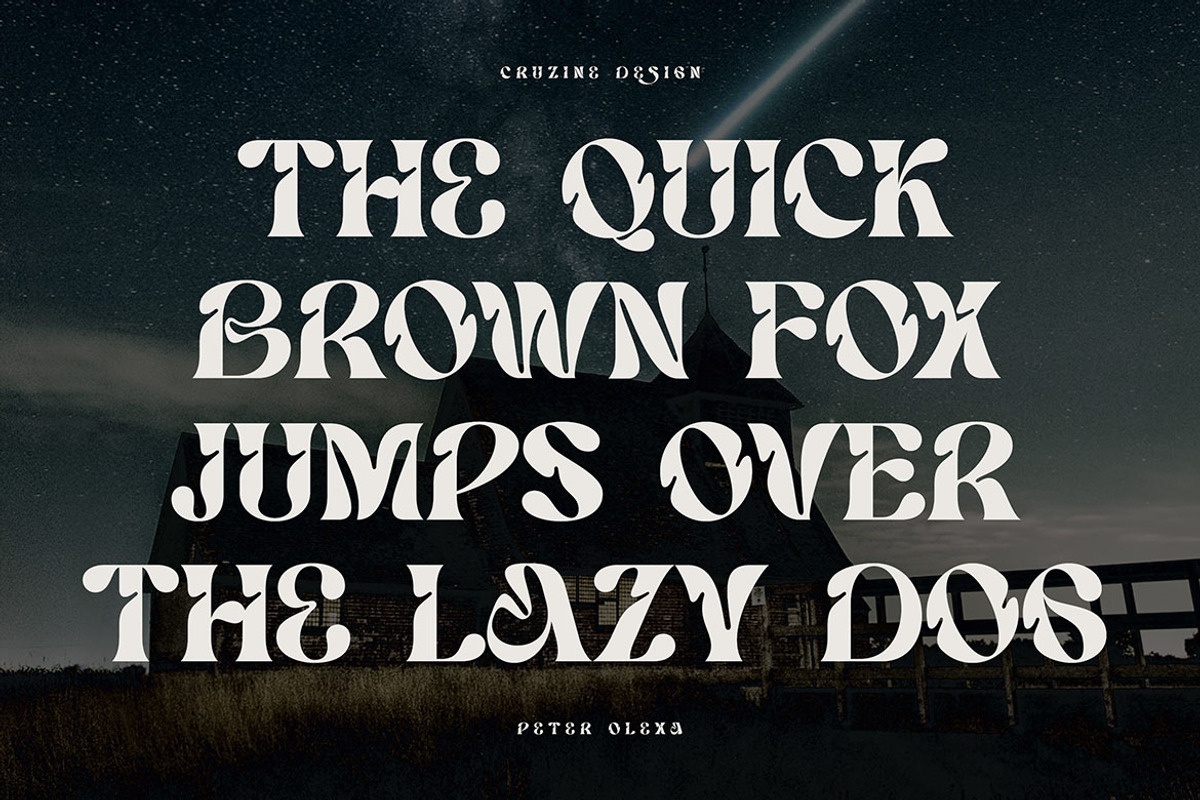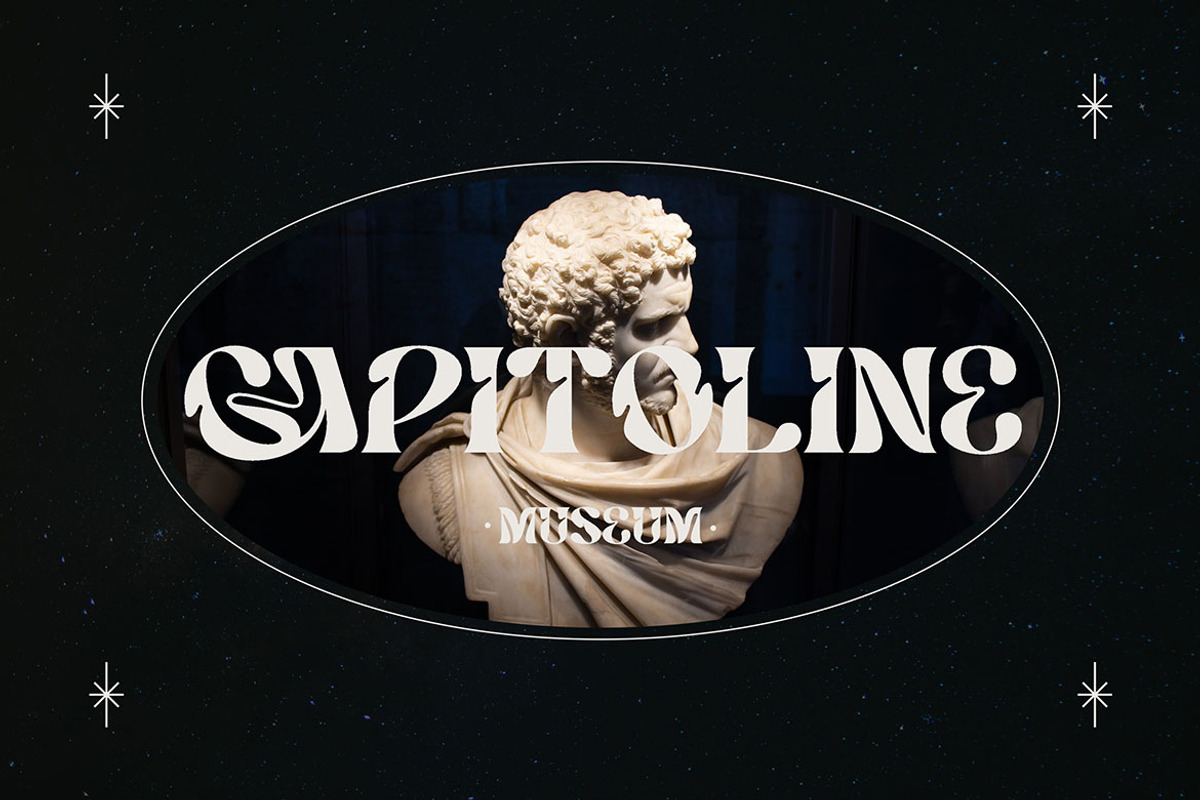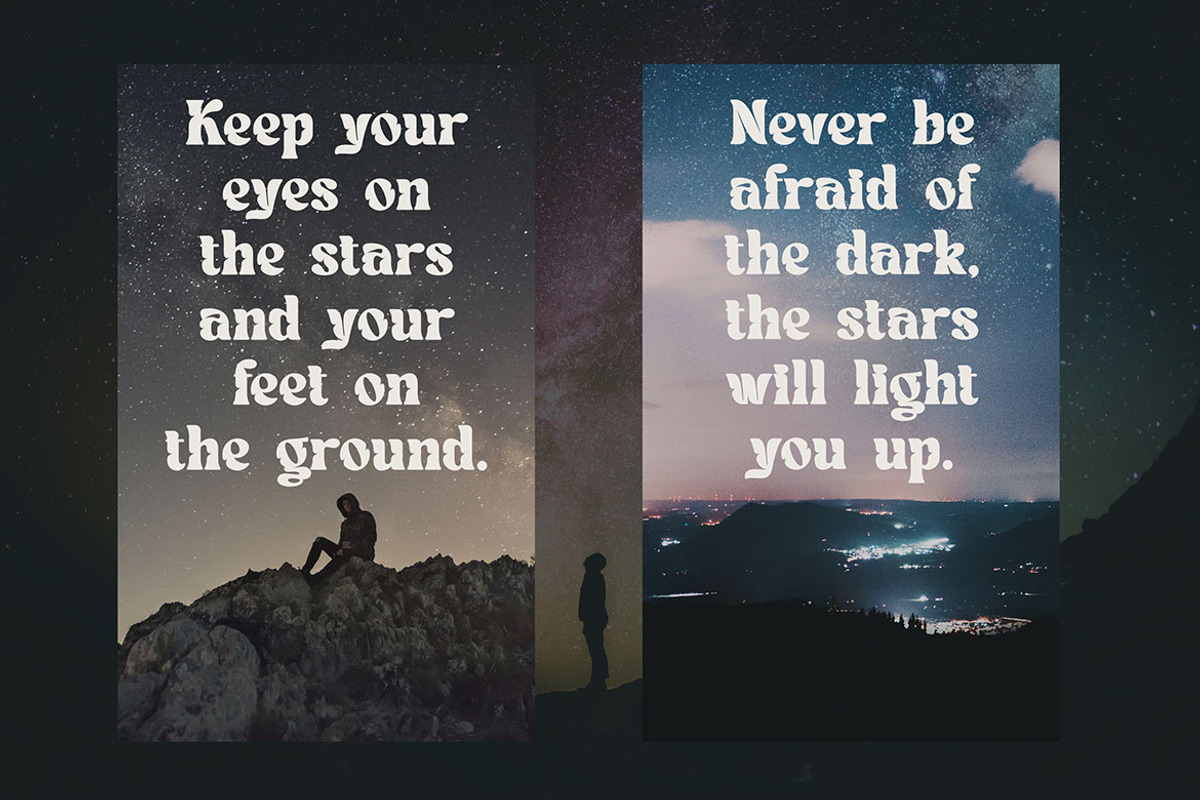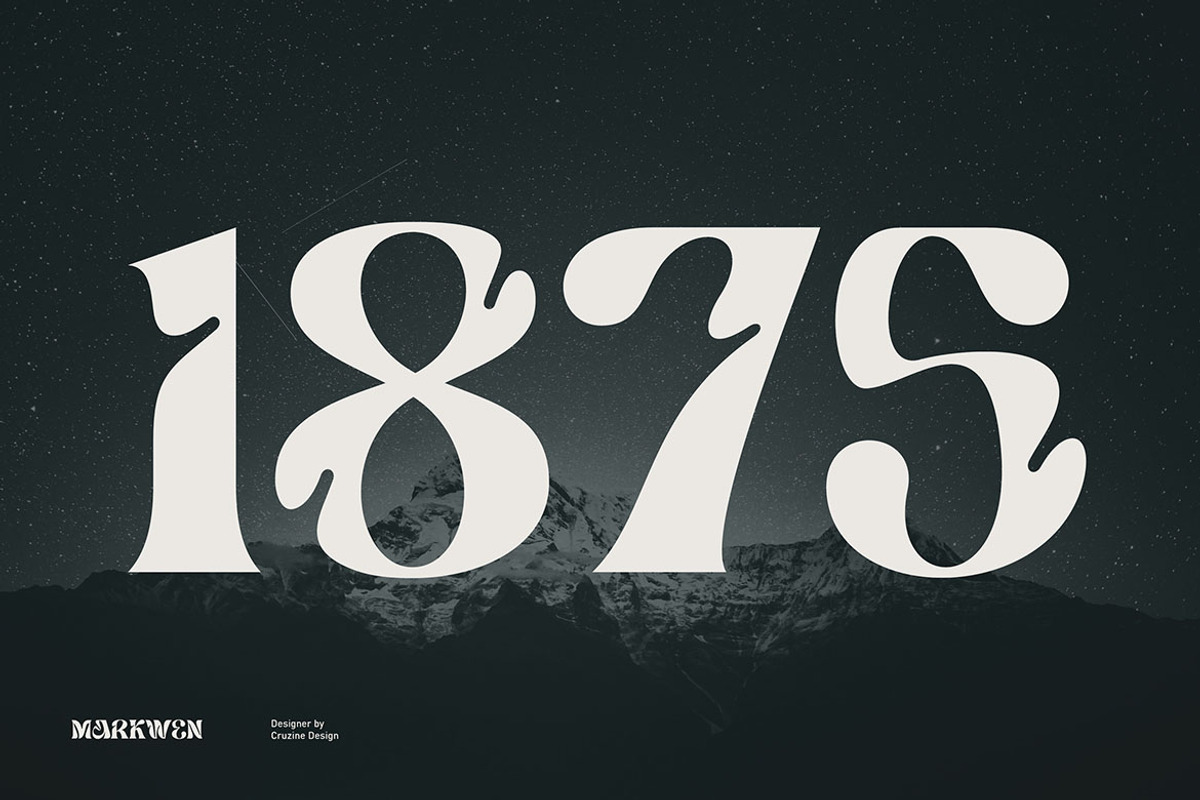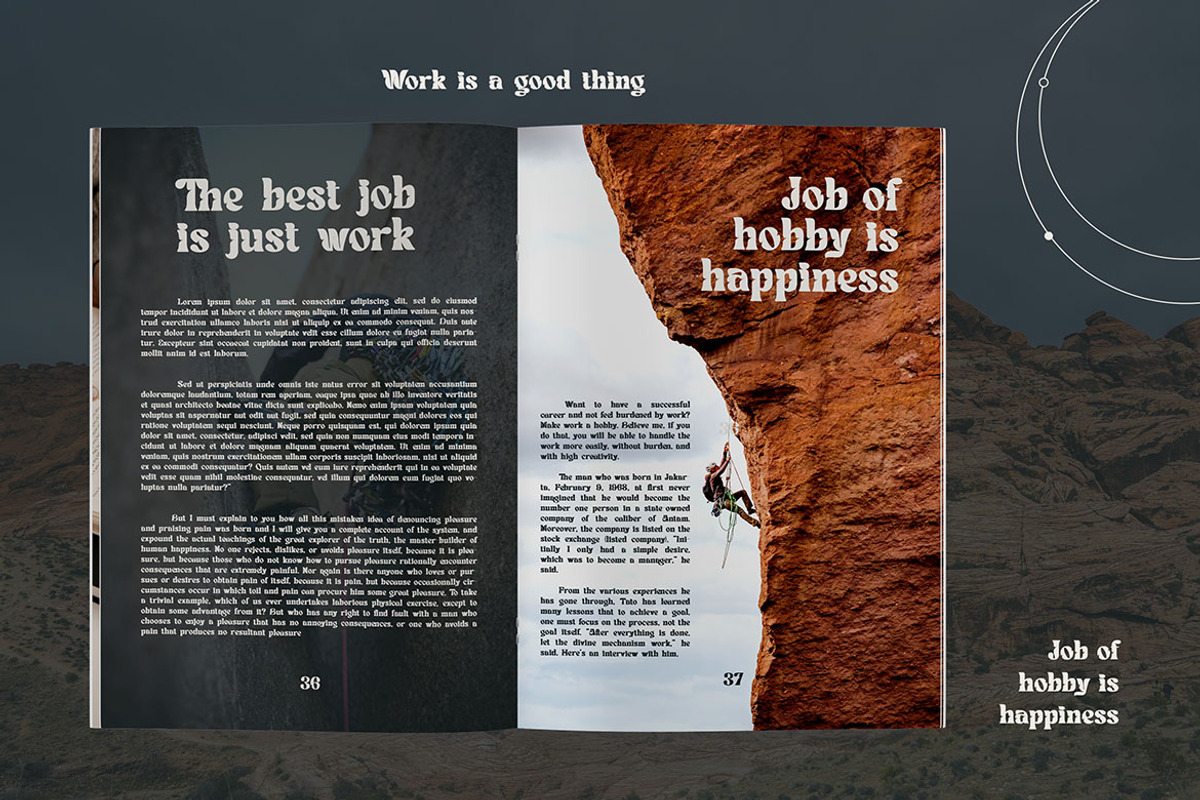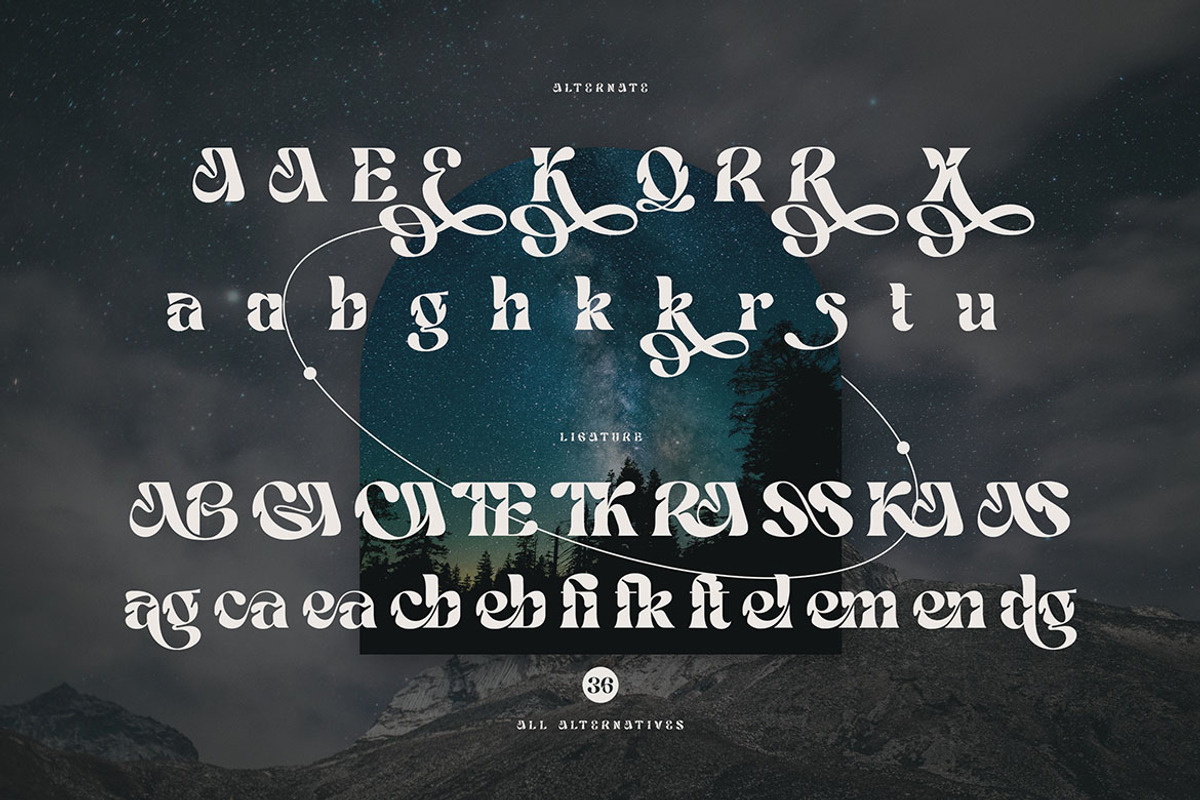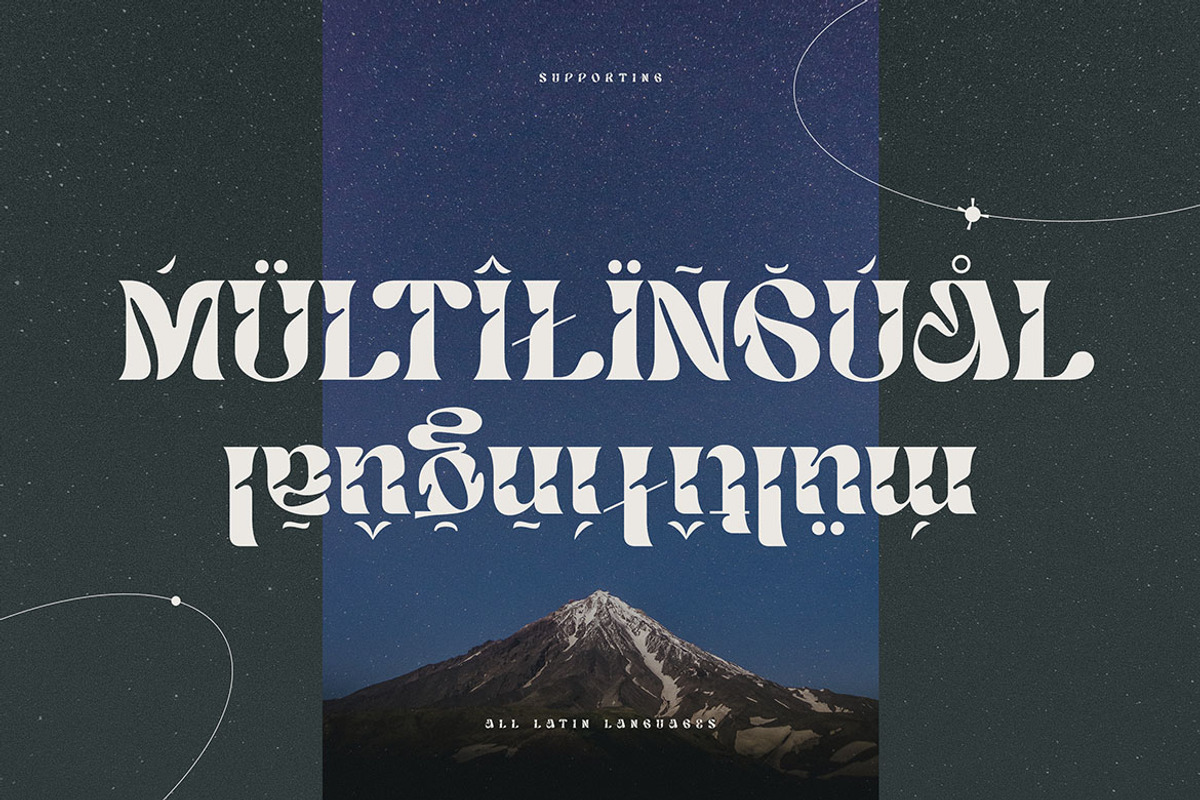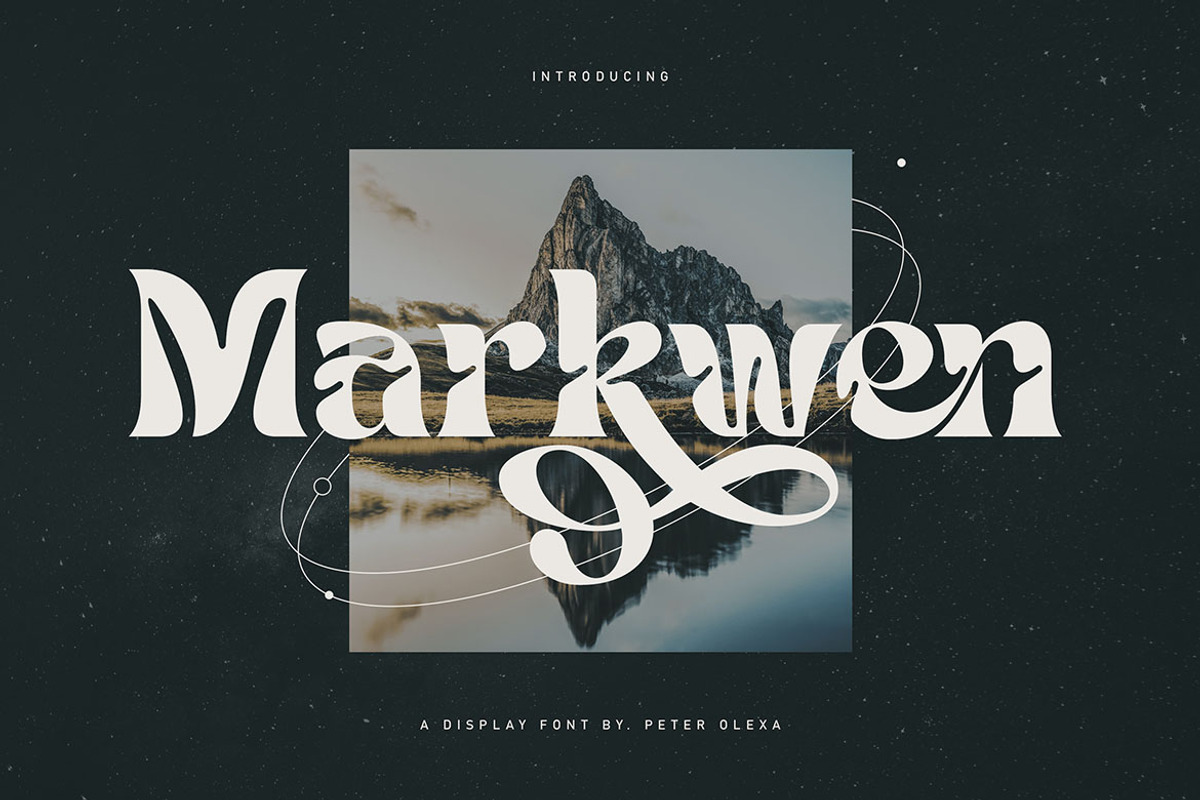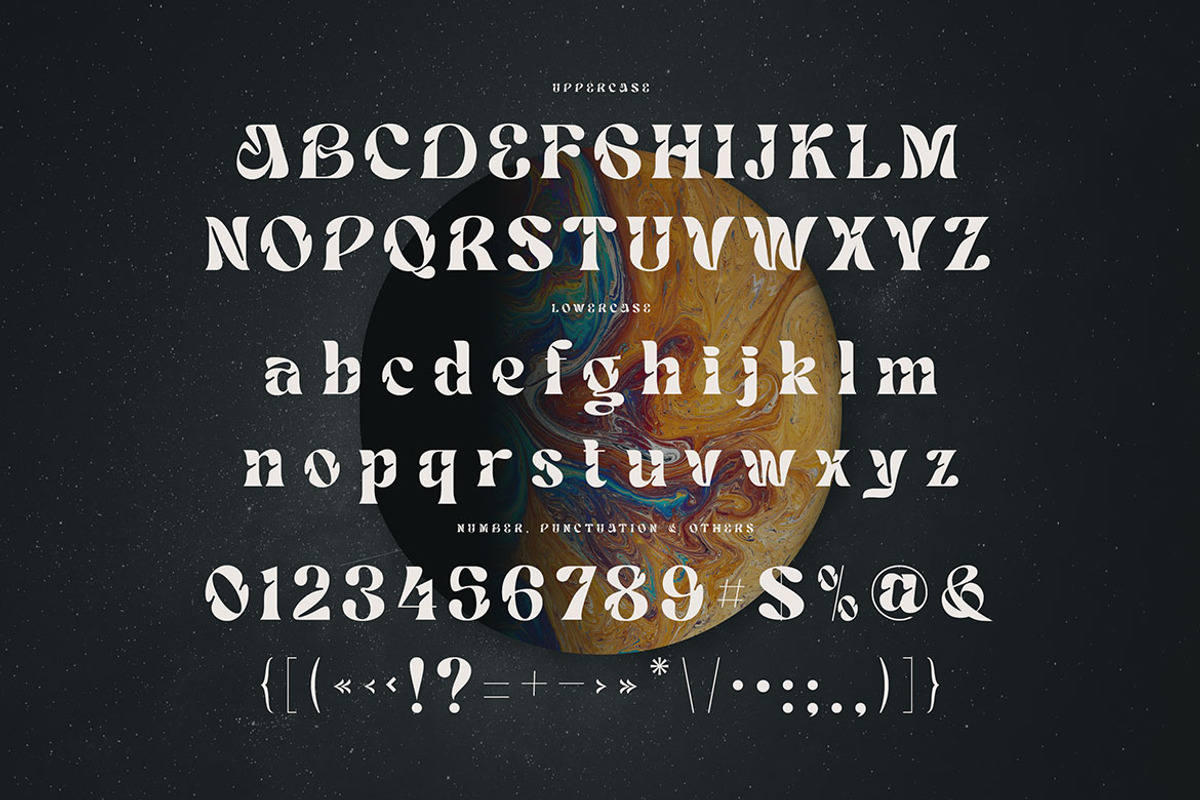
Markwen Unique Serif Font
Trendy, bold, elegant, artistic & modern style serif font for your fancy projects. Elegant, fashion and decorative style on Markwen font will be great for any branding project. Lot of alternates and ligatures will help you to create unique and original logo design or website header! Enjoy :)
- Lot of alternate characters
- Lot of ligatures
- Great for modern branding projects!